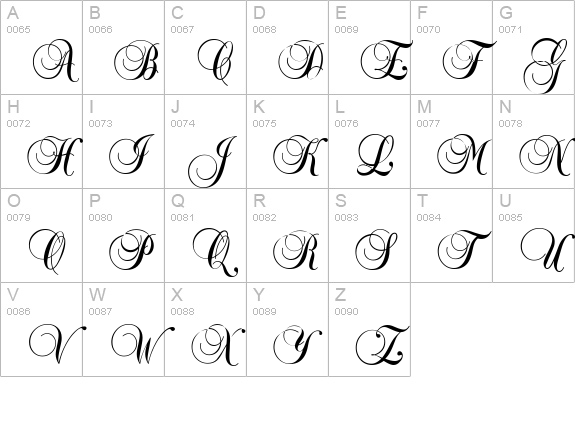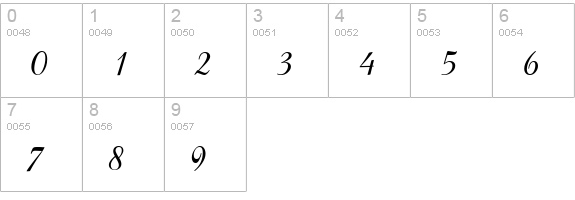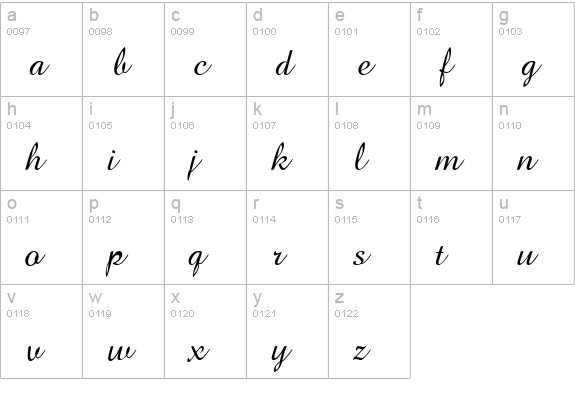
Brock Script Font Details
Brock Script font is a stunning and elegant typeface that effortlessly brings a touch of sophistication to any design project. With its flowing and graceful strokes, this font exudes a timeless charm that is perfect for adding a touch of elegance to invitations, wedding stationery, logos, and more. The beauty of Brock Script lies in its versatility – it can be used for both formal and informal occasions, making it a go-to choice for designers and creatives alike. Its unique letterforms and intricate details make it stand out from the crowd, ensuring that your designs will be noticed and appreciated. One of the best things about Brock Script font is that it is available for free download at FontsMarket.com. This means that you can easily access and utilize this exquisite typeface in your projects without any hassle. Whether you are a professional designer or an aspiring artist, having access to high-quality fonts like Brock Script can truly elevate your work to new heights. So, why wait? Take advantage of the opportunity to enhance your designs with the beauty and elegance of Brock Script font. Download it for free at FontsMarket.com and let your creativity shine through.